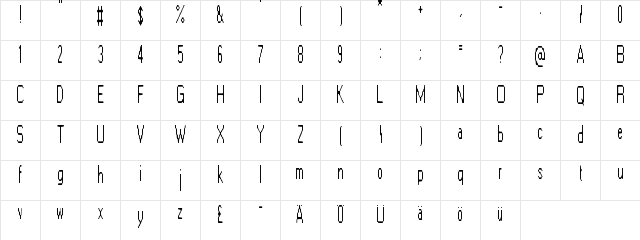
Electric Goat Regular
Design Context for Electric Goat
Electric Goat has a distinctly futuristic character, with geometric precision and clean angles that feel at home in technology, gaming, and sci-fi contexts.
Pro Tip: Try Electric Goat with generous letter-spacing in UI labels and navigation - the geometric forms benefit from room to breathe.